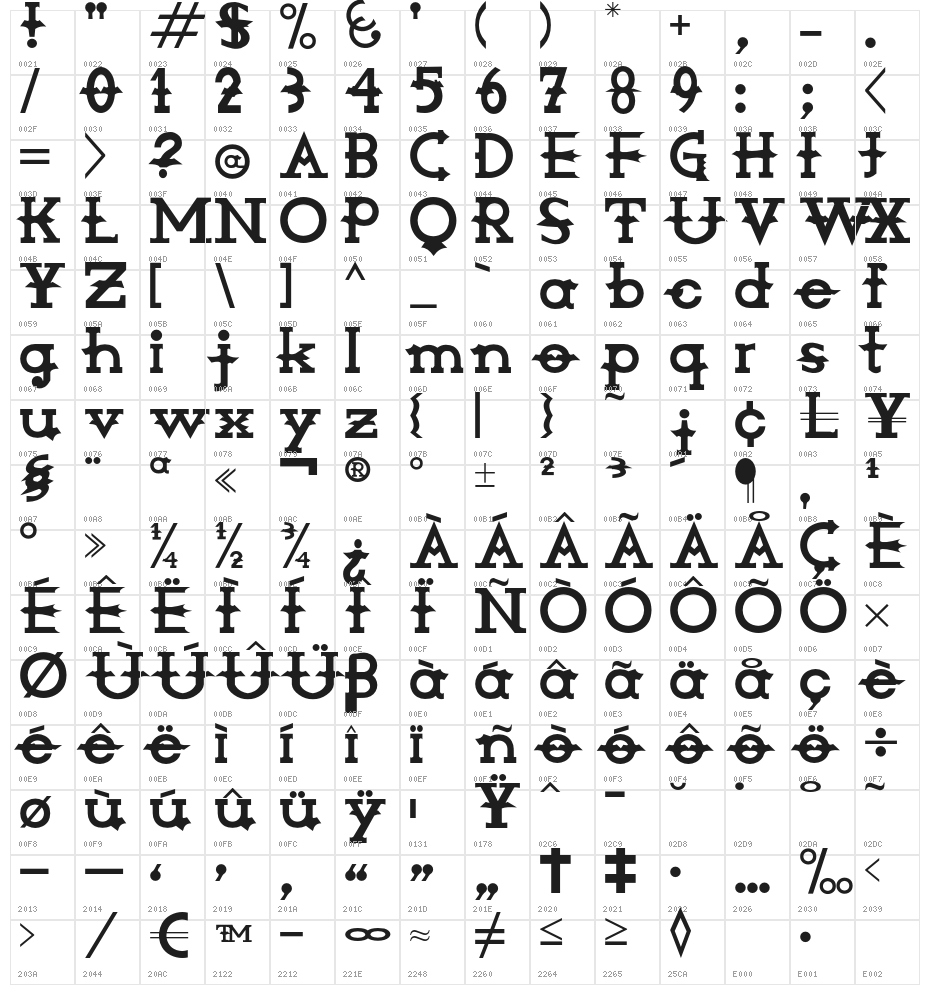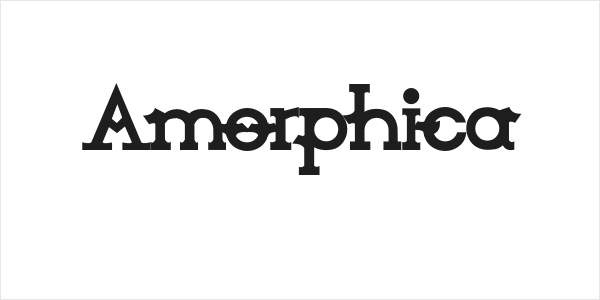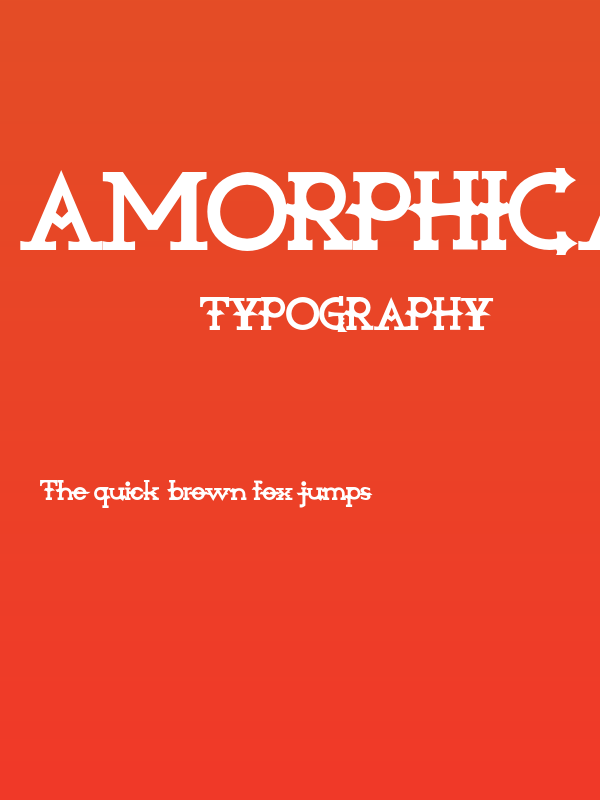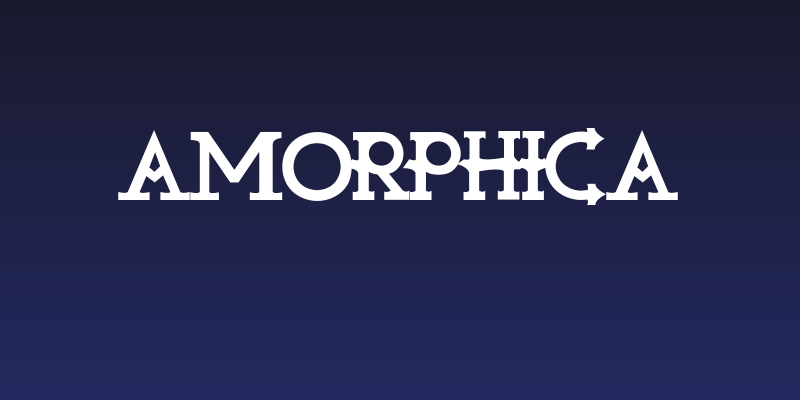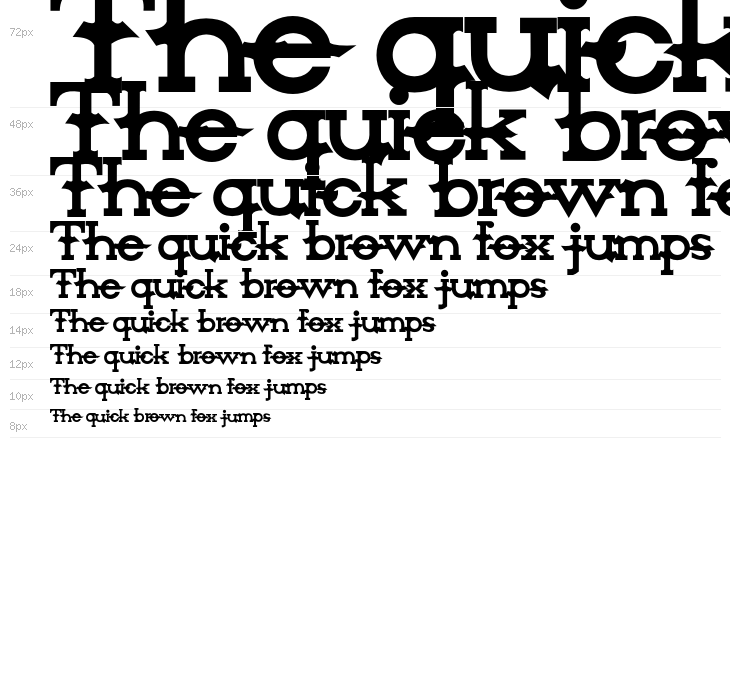
Amorphica Font
Amorphica Description
This font features a bold and striking design with unique, angular cutouts that give it a distinctive, edgy appearance. The uppercase letters are particularly eye-catching, with sharp serifs and geometric shapes that create a sense of movement and dynamism. The lowercase letters maintain this bold style, ensuring consistency across the typeface. Numbers and special characters are equally stylized, making them stand out in any design. This font's high contrast and decorative elements make it ideal for projects that require a strong visual impact.
| Proposed Projects | Ideal for posters, album covers, branding, and any project needing a bold, artistic touch. |